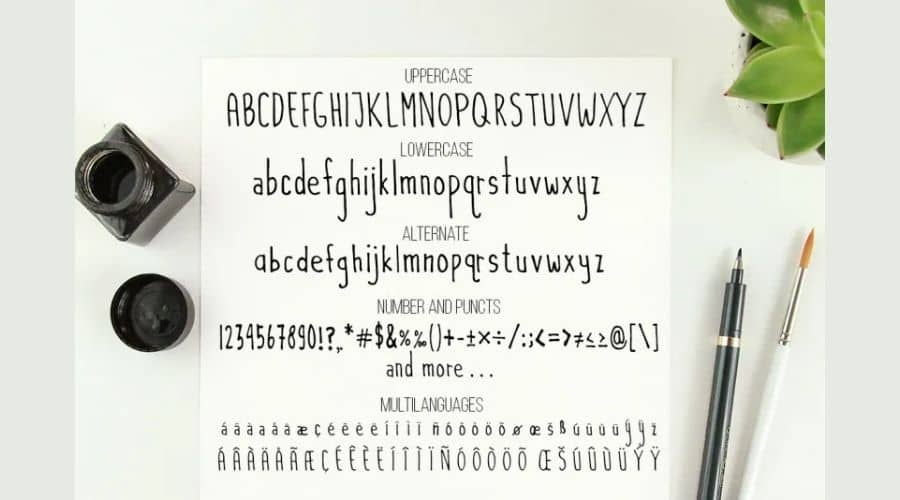
Flamingos Handwritten Font
Hello, Flamingos Handwritten Font is a condensed sans-serif font that is slim and sleek. Well Script Studio created and shared the Font. On November 21, 2019, the Font was made public. Contextual alternatives, Discretionary Ligatures, Stylistic Alternates, and Swashes are all supported by Flamingo. The Font is approved for each letter, print 12-20 alternates that have been properly prepared (490 alternates). There are 788 glyphs in all, including multilingual symbols.
Basque, Bosnian, Catalan, Cornish, Croatian, Czech, Danish, Dutch, Embu, English, Esperanto, Estonian, Faroese, Filipino, Finnish, French, Galician, German, Hungarian, Icelandic, Indonesian, Irish, Italian, Malay, Maltese, Manx, Maori, Meru, Morisyen, North Ndebele, North Ndebele Norwegian Bokmal, Norwegian Nynorsk, Nyankole, Oromo, Polish, Portuguese, Romansh, Serbian, Slovak, Slovenian, Spanish, Swedish, and Swiss German are among the languages spoken in Norway.
This condensed sans-serif will look great on cards and invitations, as well as on the cover of a book, and it pairs well with other typefaces. Flamingos are ideal for branding projects, logos, weddings, social media posts, commercials, product packaging, product design, label, photography, watermark, book covers, and any other projects that require handwriting.
| Name | Flamingos Handwritten Font |
| Style | Sans-Serif |
| Designer | Well Script Studio |